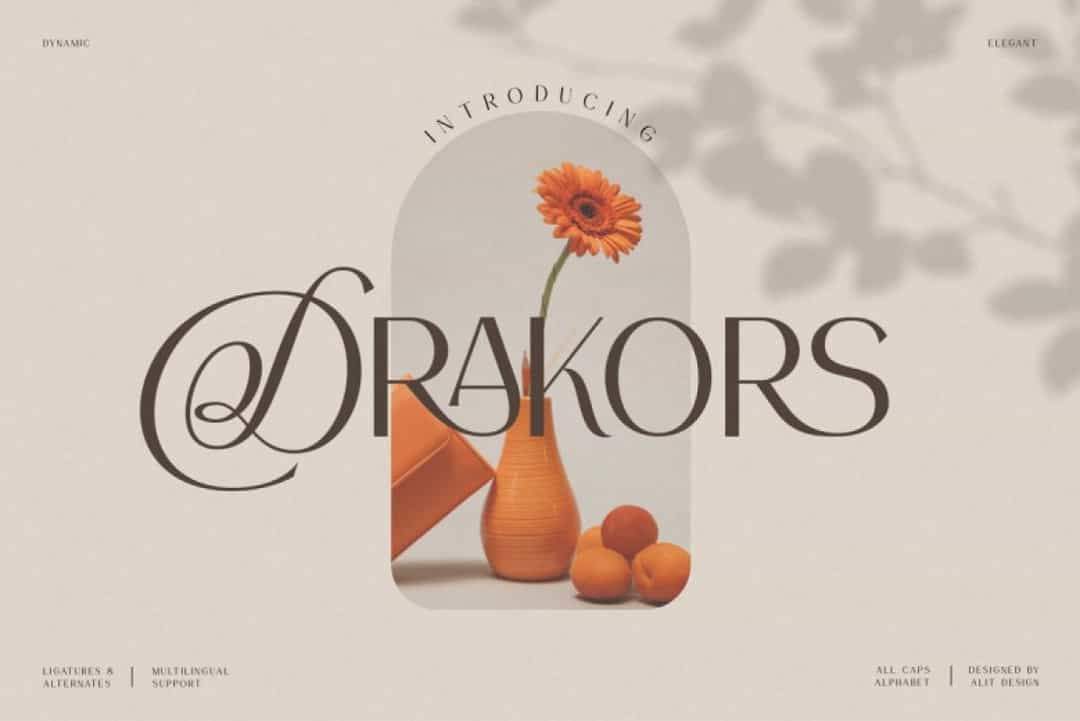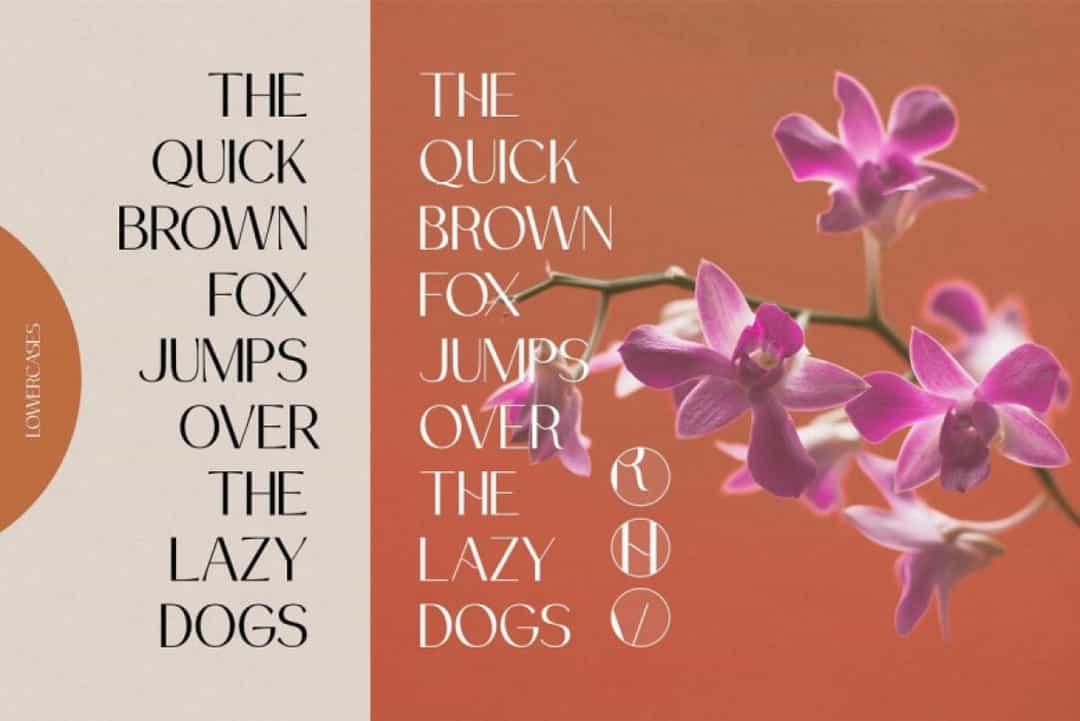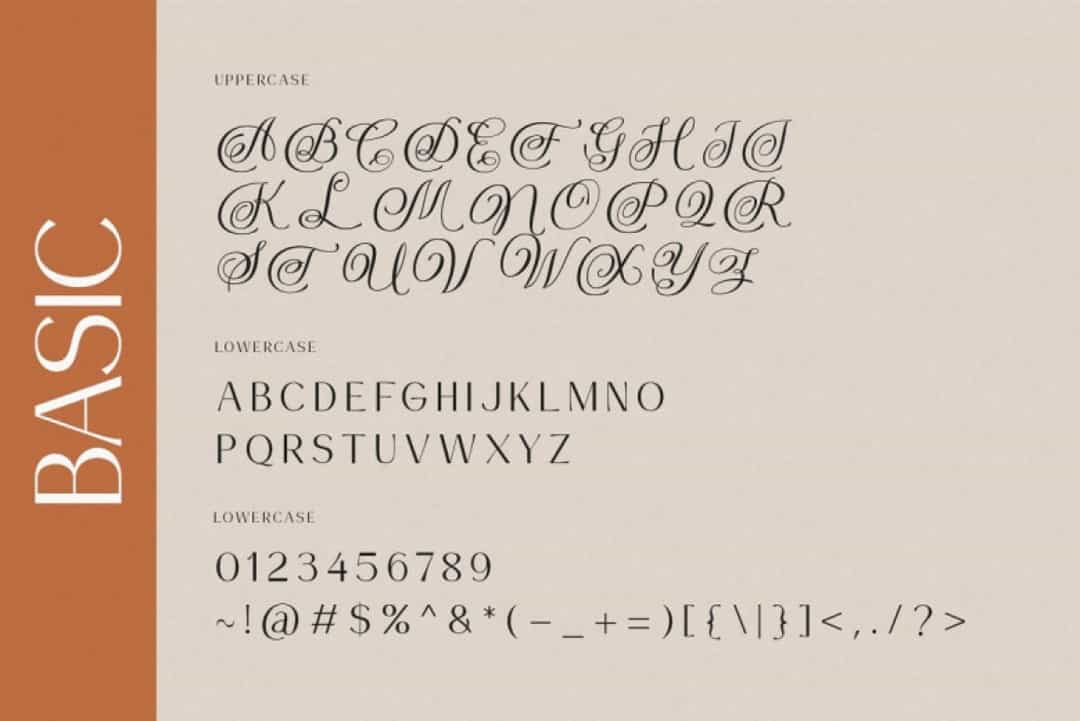
The DRAKORS font was developed by combining an elegant script font with clean serif letters for an eye-catching contrast that stands out amongst all of your computer fonts. Featuring contemporary serif design paired with elegant script-style letters, DRAKORS stands out among them all as something different and distinct.